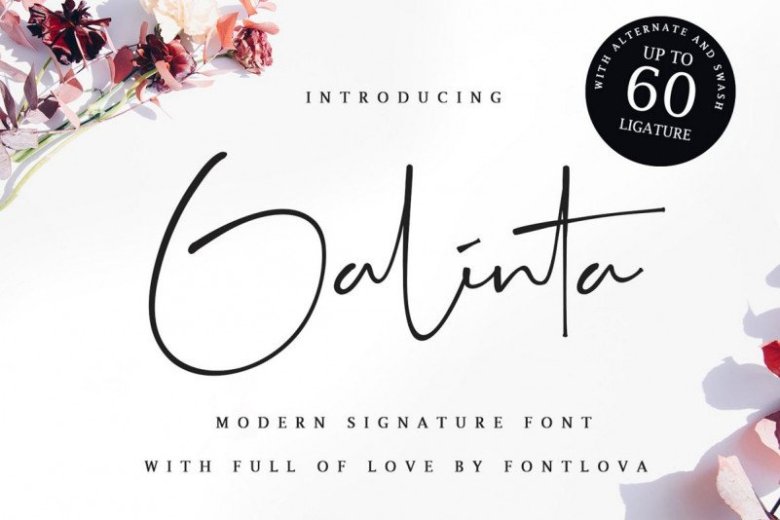
Galinta Signature Font
Befonts introduces you to the fonts of a special typeface, a very enthusiastic font of the author, I tried to use for my new project, and was highly appreciated by customers, you try it. use it, and if possible buy this font copyright to support the author. Galinta Font is a handwritten signature script with a natural & stylish flow. This collection of scripts is perfect for personal branding. This works well for many applications. Everything from personal branding & wedding invitations to advertising could benefit from this signature fonts.
Galinta Signature work well for many different aesthetics. They work well with something like ‘cosmetics’ for example but would also work well with Liquor Labels, Signage, & any type of signature-styled logo.